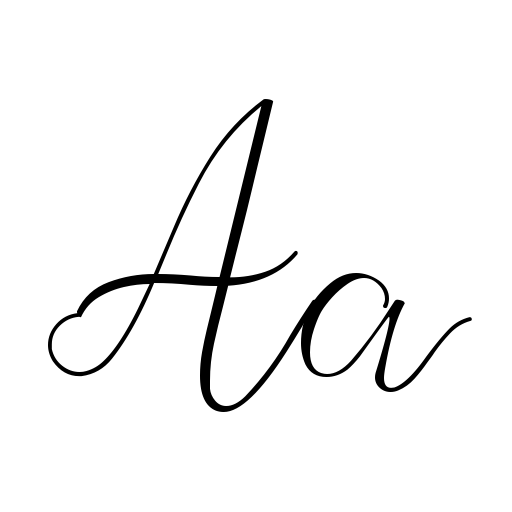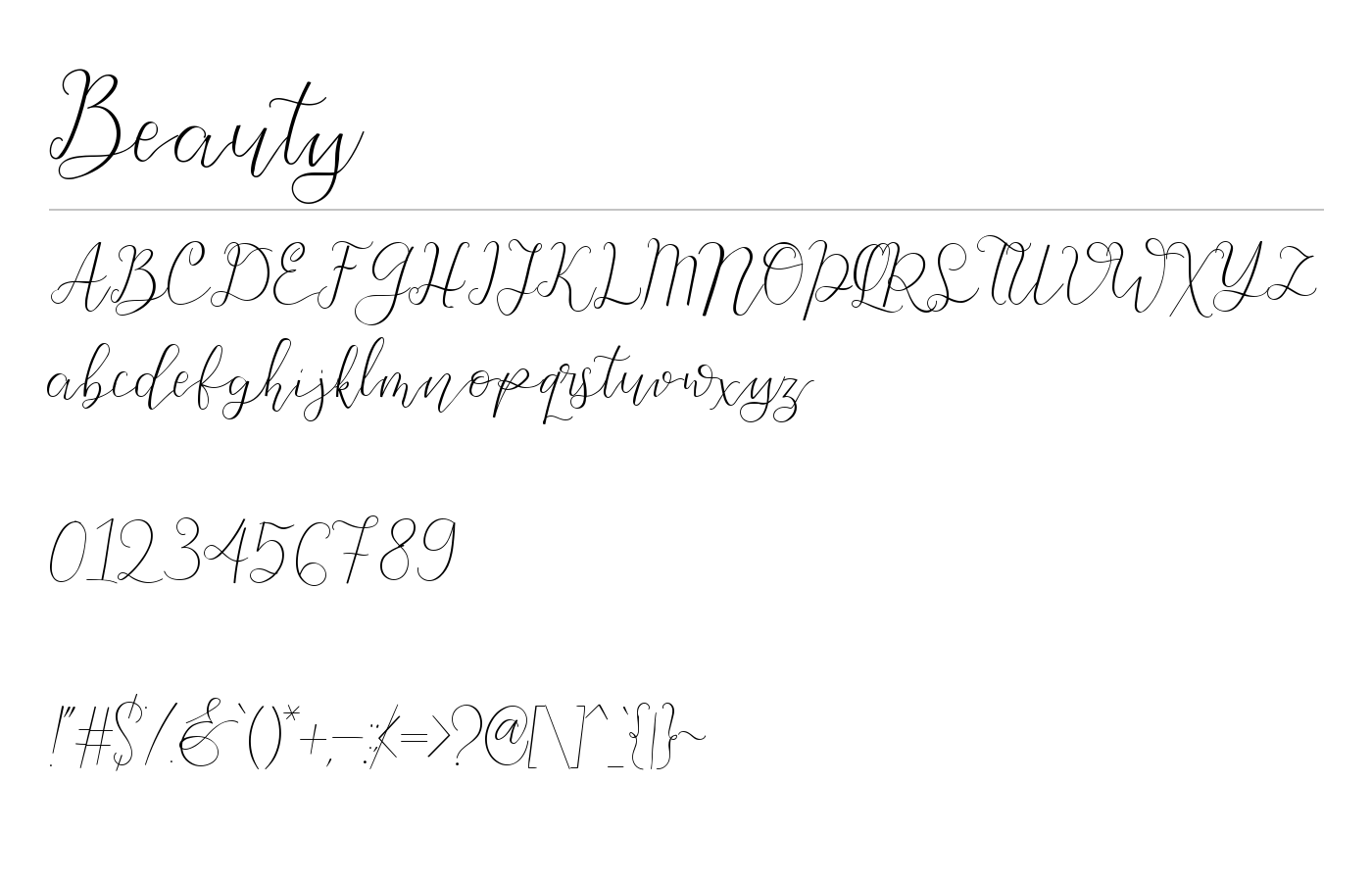
Beauty Font is an elegant and delicate script typeface characterized by fine, flowing lines and graceful curves that evoke a sense of sophistication and charm. Its slender strokes and slightly varied letterforms make it perfect for stylish branding, wedding invitations, and beauty-related projects where a refined and feminine touch is desired. This font adds a touch of luxury and romance, working beautifully in headlines, logos, and decorative text.
Beauty Font
About Beauty Font